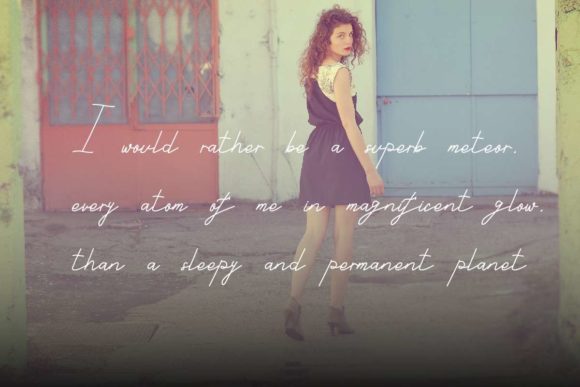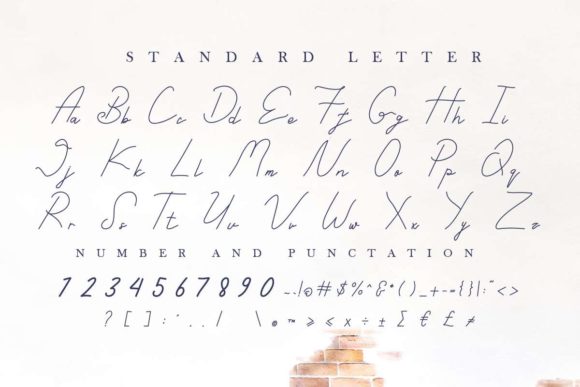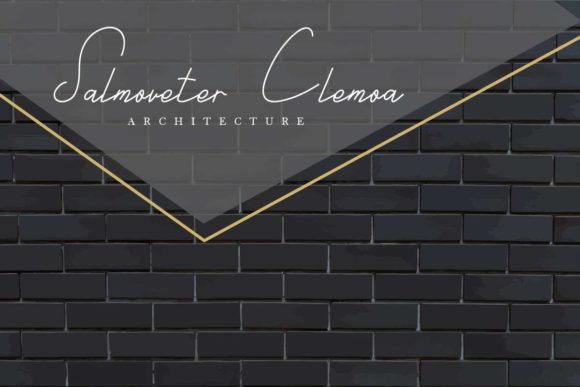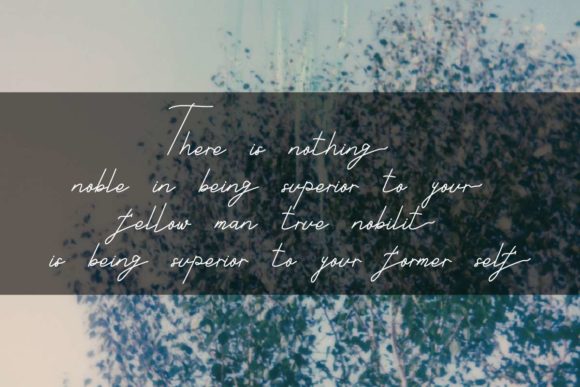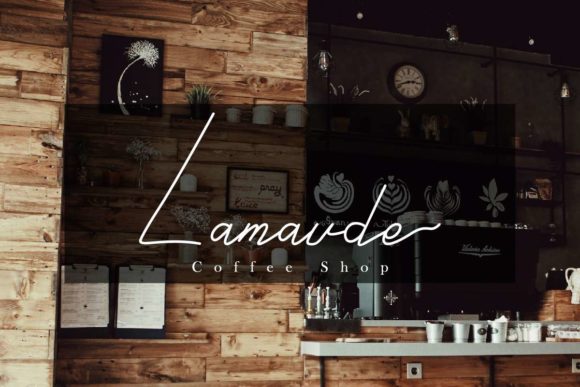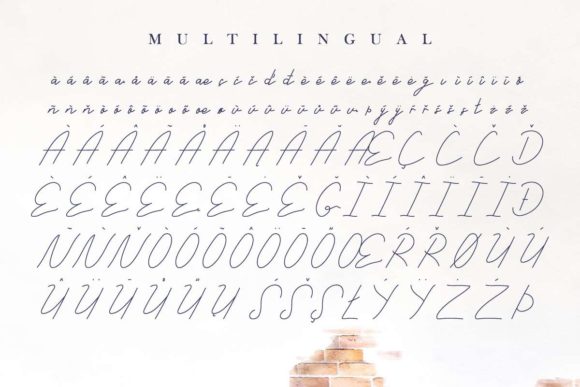
Unlocking the Art of Handwriting with the Ashirra Font
Have you ever sat down with a blank sheet of paper and a pen, feeling the urge to create something beautiful? For many designers, this moment is a spark that ignites their imagination and fuels their passion for creating unique and captivating designs. And what better way to capture that essence than with a font that embodies the authenticity of handwriting?
Introducing the Ashirra Font, a sophisticated script that brings to life the beauty of handwritten letters. This incredible font is not just a tool for designers, but a gateway to expressing their creativity and individuality. With its unique approach to lettering, the Ashirra Font is a valuable asset for designers looking to add a touch of personality to their work.
Ashirra Font Key Features
- Font Family: Ashirra, a unique and elegant script font designed for various applications.
- Unique Characteristics: Ashirra features a flowing, handwritten feel with subtle flourishes, making it perfect for creative and artistic projects.
Ashirra Font Review
As a designer, I’m always on the lookout for unique and stylish fonts to elevate my designs. The Ashirra Font caught my attention, and I decided to give it a try. Here’s my honest review.
- Unique Style: Ashirra Font has a distinct, modern style that sets it apart from more common fonts. It’s perfect for adding a touch of sophistication to your designs.
- Readability: Despite its ornate appearance, Ashirra Font is surprisingly readable, even at smaller font sizes.
- Versatility: This font works well for both digital and print designs, making it a great addition to any designer’s toolkit.
- Limited Character Set: Ashirra Font has a limited character set, which may not be ideal for designers who need to work with non-Latin scripts.
- Not Ideal for Body Text: While Ashirra Font is great for headings and titles, it may not be the best choice for body text due to its ornate nature.
Ashirra Font is a stylish and modern font that’s perfect for adding a touch of sophistication to your designs. While it has some limitations, it’s a great addition to any designer’s toolkit. I’d recommend using it for headings, titles, and other design elements where you want to make a statement.
Tips for Getting the Most Out of the Ashirra Font
Use the Ashirra font for titles, headings, and emphasis to add a touch of elegance to your designs.
Combine the Ashirra font with other fonts to create a unique and visually appealing typography.
Experiment with different font sizes, colors, and styles to maximize the impact of the Ashirra font.
The Ashirra font is suitable for:
Brand logos and identities
Magazine and newspaper headlines
Book covers and interior design
Alternatives to Ashirra Font for Designers
Playfair Display is a luxurious, high-end serif font ideal for headings and titles. It’s perfect for creating a sense of elegance and sophistication in your designs. When to use: High-end branding, luxury products, and formal invitations.
Playfair Display is similar to Ashirra Font in its elegant and refined feel, but it’s more ornate and luxurious. While Ashirra Font has a more subtle, modern look, Playfair Display is more dramatic and eye-catching.
Merriweather is a classic serif font with a timeless, traditional feel. It’s great for body text and is suitable for a wide range of designs. When to use: Newsletters, books, and other publications that require a classic, professional look.
Merriweather is similar to Ashirra Font in its classic, timeless feel, but it’s more traditional and conservative. While Ashirra Font has a more modern, versatile look, Merriweather is more suited to traditional designs.